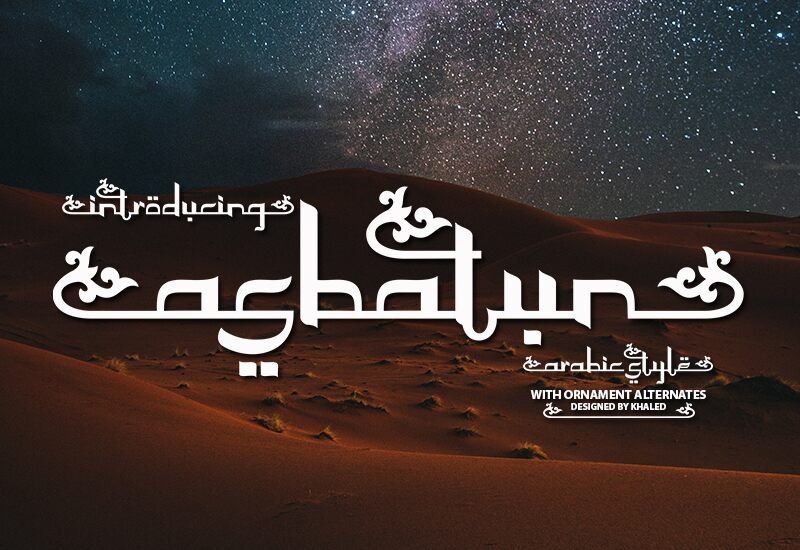
Asbatun, a captivating Arabic font crafted by the visionary designers at Akifatype Studio, exudes a commanding presence. This condensed font seamlessly blends modern elegance with traditional Arabic calligraphy, creating a harmonious visual narrative.
The bold, striking letterforms command attention, lending an air of sophistication and authority to any text they adorn. Asbatun's versatility shines, equally suitable for high-profile branding, eye-catching headlines, or distinct typographic treatments. Its condensed nature allows for dynamic compositions, while the graceful curves and sharp angles evoke a sense of cultural heritage and contemporary flair.
Whether used in print, digital, or multimedia applications, Asbatun promises to elevate the visual impact of any project, leaving a lasting impression on the viewer.